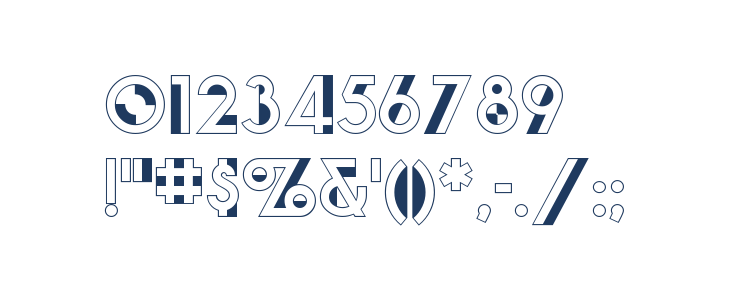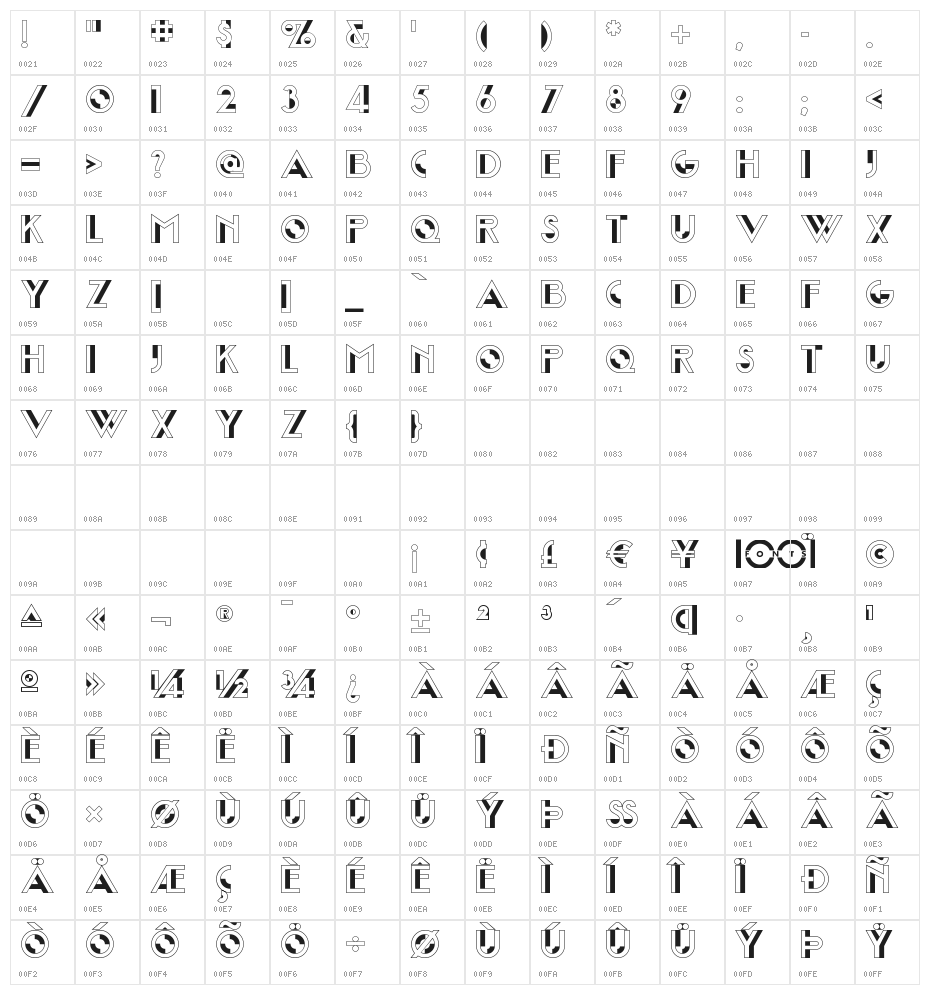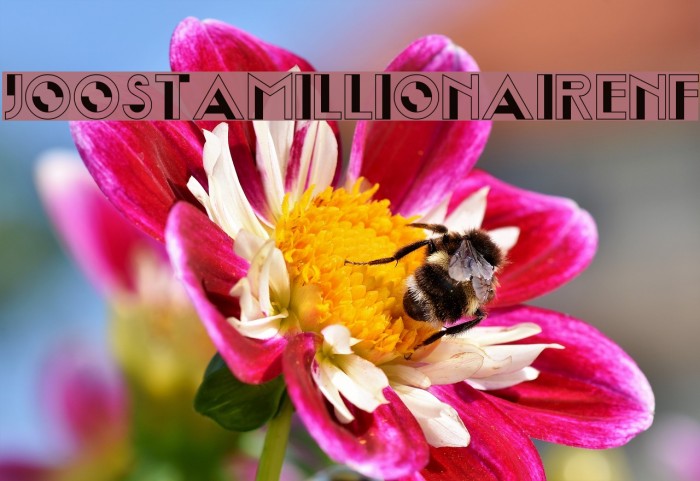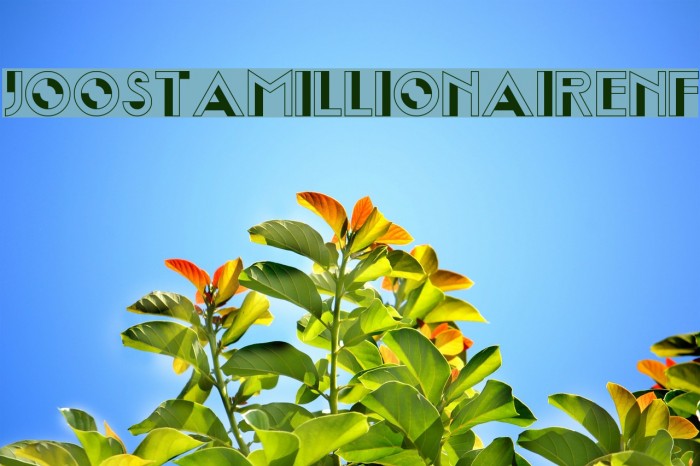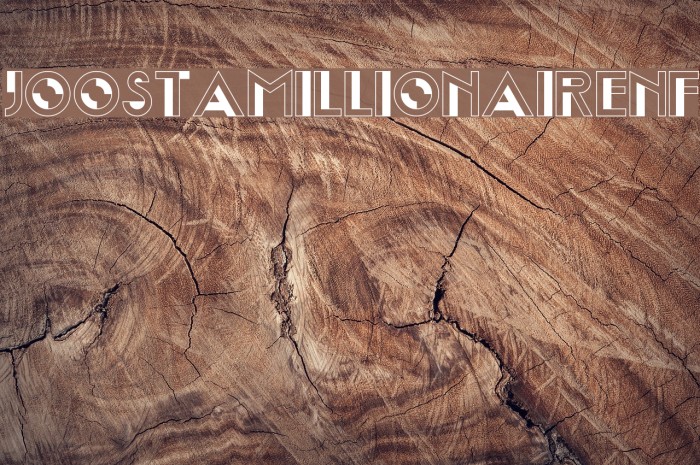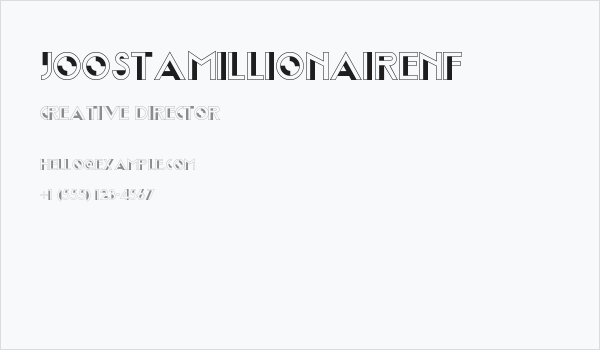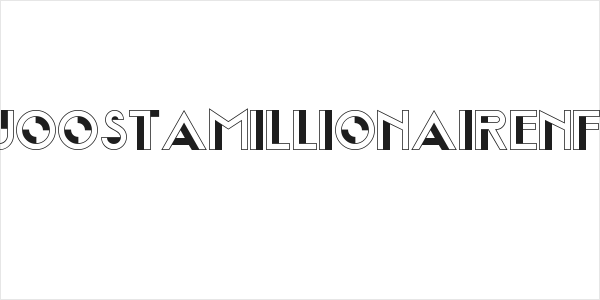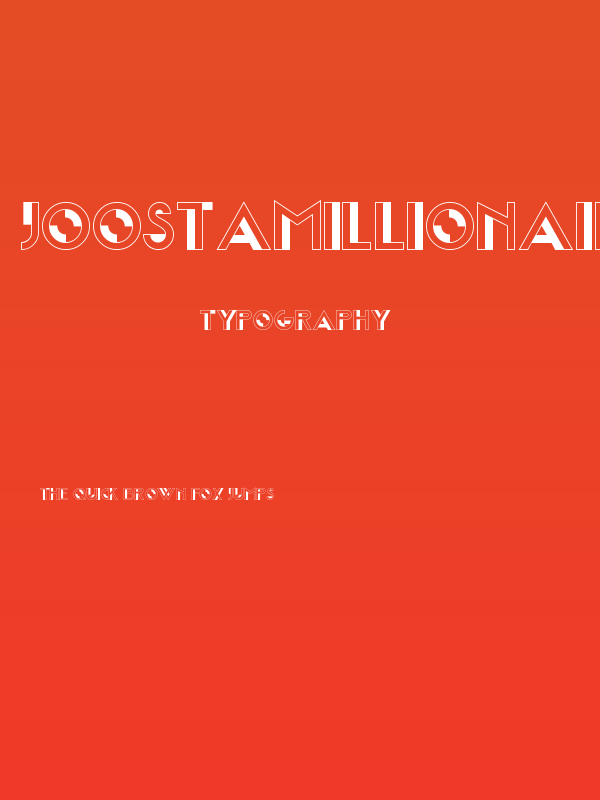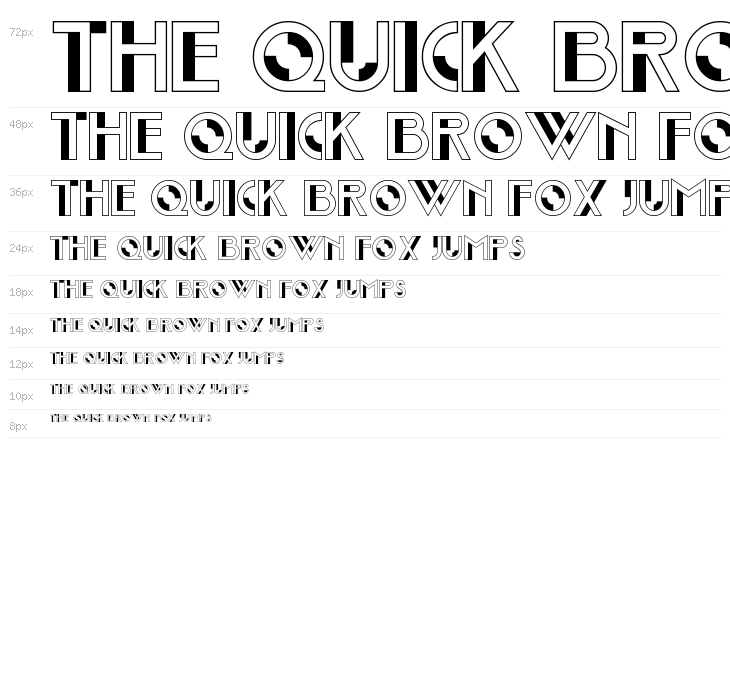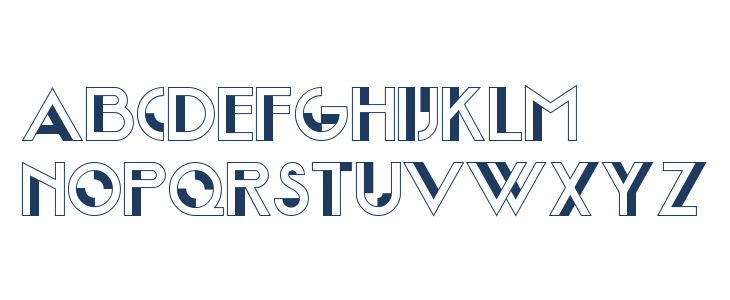
JoostAMillionaireNF Font
JoostAMillionaireNF Description
This font features a bold and striking design with a unique geometric style. The characters are outlined with a thick border, creating a strong visual impact. The use of negative space within the letters adds an intriguing dimension, making it stand out in any design. The uppercase and lowercase letters maintain a consistent style, with sharp angles and clean lines. Numbers and special characters are designed to match the boldness and geometric nature of the alphabet, ensuring a cohesive look across all text elements. This font is perfect for projects that require a modern and eye-catching aesthetic.
| Proposed Projects | Ideal for branding, posters, headlines, and any design needing a modern, bold statement. |